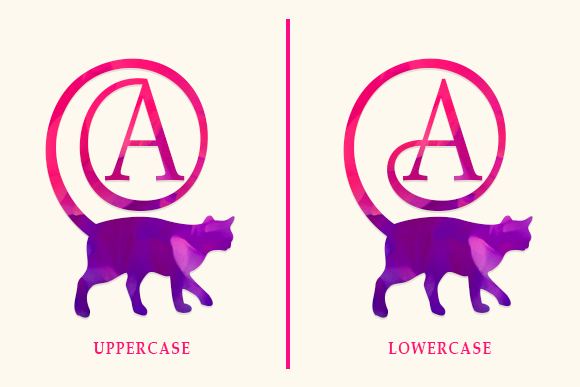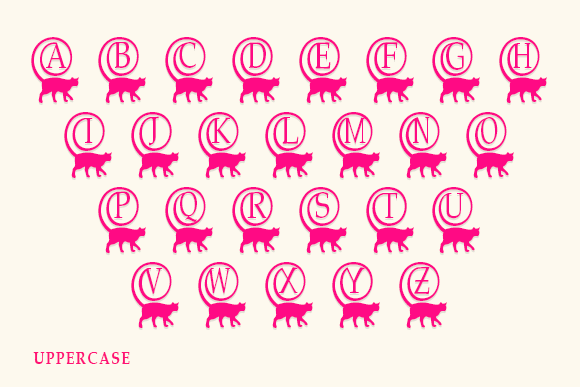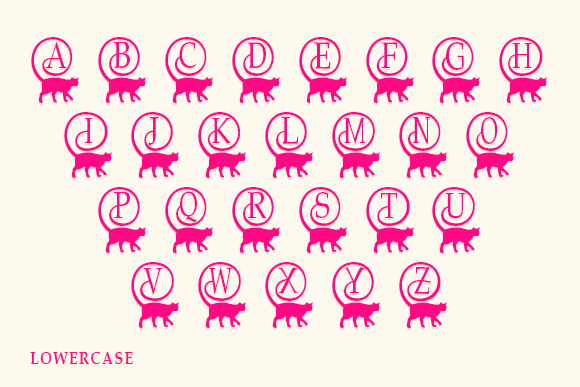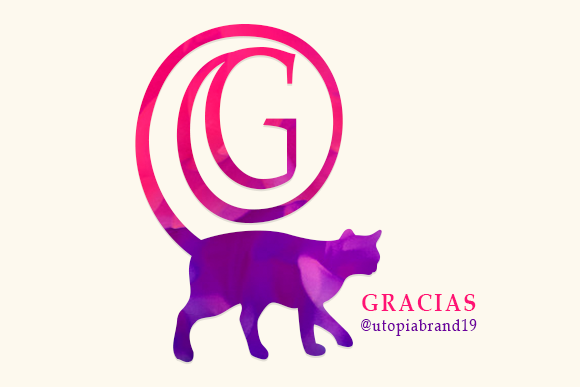
Introducing Cat Monogram Font: The Purrfect Addition to Your Design Collection
Are you a designer or crafter looking for a unique and elegant font to add a touch of whimsy to your creations? Look no further than the Cat Monogram Font, a beautiful decorative font featuring lovely cat-themed ornaments. With its authentic feel and versatility, this font is sure to capture the hearts of designers and crafters alike.
What is Cat Monogram Font?
Cat Monogram Font is a carefully crafted decorative font that showcases adorable cat-themed designs, perfect for creating stunning stationary art, eye-catching social media posts, and cute greeting cards. The font’s elegant and sophisticated style makes it an ideal choice for designers and crafters seeking to add a touch of personality to their work.
Key Features of Cat Monogram Font
• Elegant and Decorative: Cat Monogram Font boasts a beautiful, elegant design that adds a touch of sophistication to any project.
• Cat-Themed Ornaments: The font features an assortment of lovely cat-themed ornaments, making it purrfect for cat lovers and enthusiasts.
• Authentic Feel: The font’s authentic feel makes it suitable for a wide range of design applications, from traditional to modern.
• Versatile: Cat Monogram Font can be used to create a variety of designs, including stationary art, social media posts, greeting cards, and more.
Uses of Cat Monogram Font
Cat Monogram Font is an incredibly versatile font that can be used in a multitude of design applications. Here are some ideas to get you started:
• Stationary Art: Create beautiful stationary art, including invitations, greeting cards, and letters, using Cat Monogram Font.
• Social Media Posts: Add a touch of elegance to your social media posts with Cat Monogram Font, perfect for creating eye-catching graphics and quotes.
• Greeting Cards: Design cute and personalized greeting cards for special occasions, such as birthdays, holidays, and anniversaries.
• DIY Projects: Use Cat Monogram Font to create custom DIY projects, including scrapbooking, journaling, and crafting.
Benefits of Using Cat Monogram Font
By incorporating Cat Monogram Font into your design collection, you’ll enjoy a range of benefits, including:
• Unique and Creative Designs: Cat Monogram Font allows you to create unique and creative designs that stand out from the crowd.
• Time-Saving: The font’s elegant design and versatility save you time and effort, allowing you to focus on other aspects of your project.
• Professional-Looking Results: With Cat Monogram Font, you can achieve professional-looking results without extensive design experience.
Tips for Using Cat Monogram Font
To get the most out of Cat Monogram Font, follow these tips:
• Experiment with Different Sizes: Try varying the font size to create visual interest and hierarchy in your designs.
• Pair with Other Fonts: Combine Cat Monogram Font with other fonts to create a unique and eye-catching design.
• Use in Combination with Images: Pair Cat Monogram Font with images or illustrations to add an extra layer of depth and meaning to your designs.
In conclusion, Cat Monogram Font is a beautiful and versatile decorative font that is sure to delight designers and crafters alike. With its elegant design, cat-themed ornaments, and authentic feel, this font is purrfect for creating stunning stationary art, eye-catching social media posts, and cute greeting cards. By incorporating Cat Monogram Font into your design collection, you’ll enjoy a range of benefits, including unique and creative designs, time-saving, and professional-looking results.